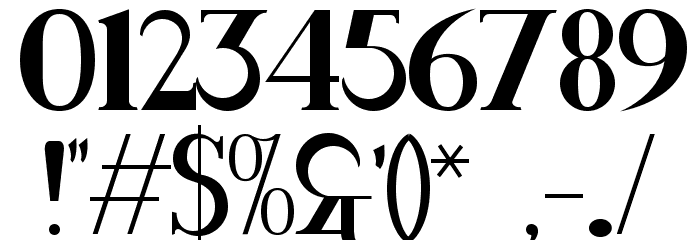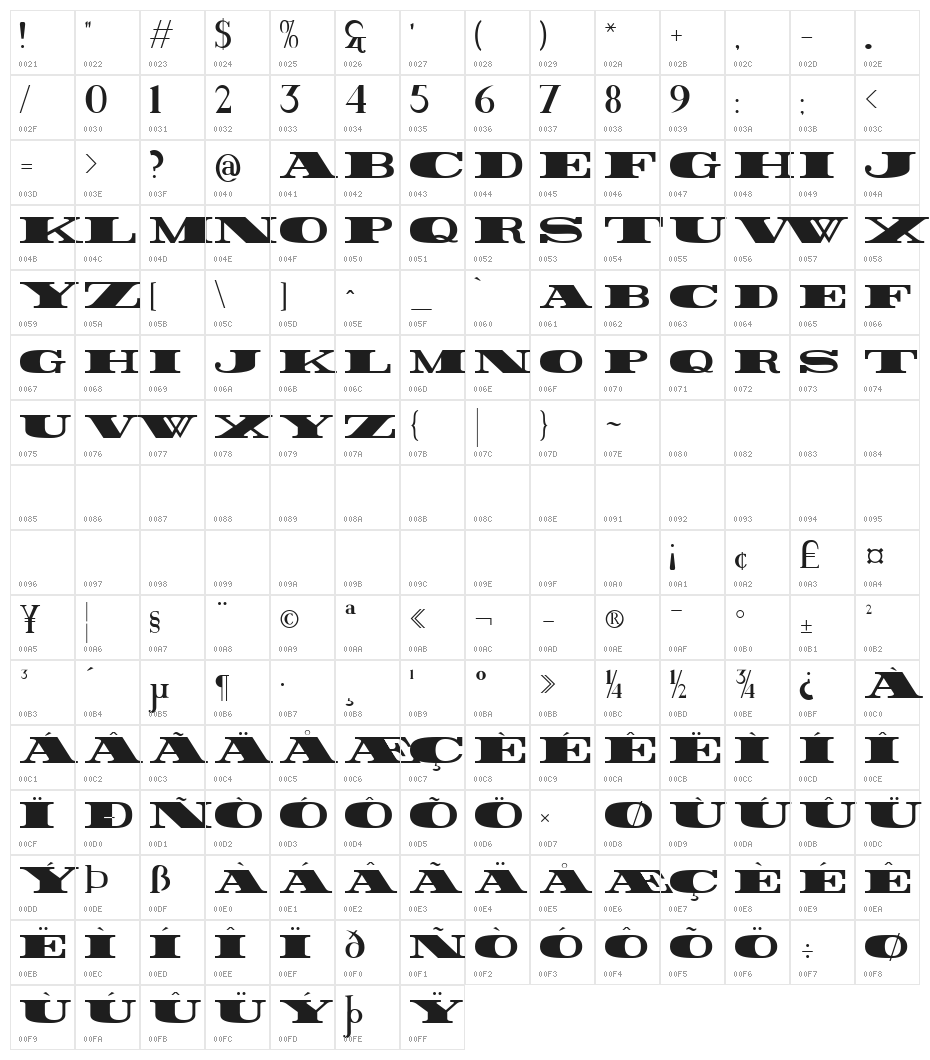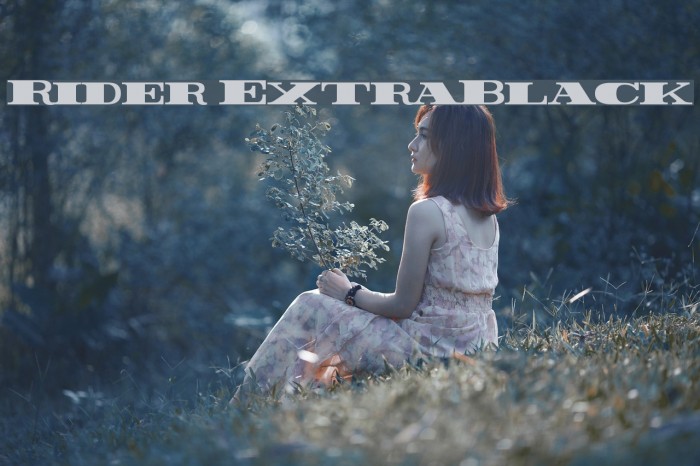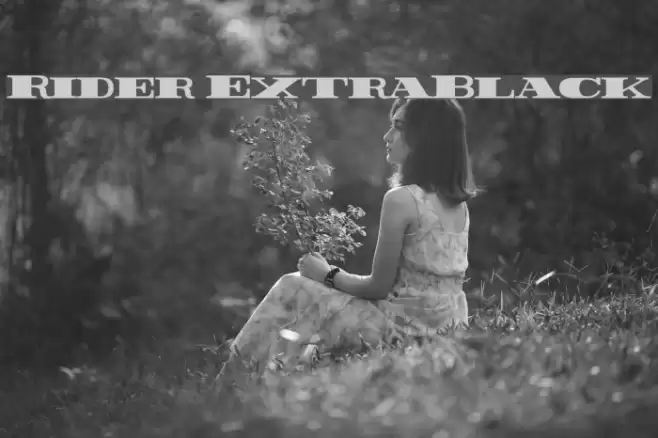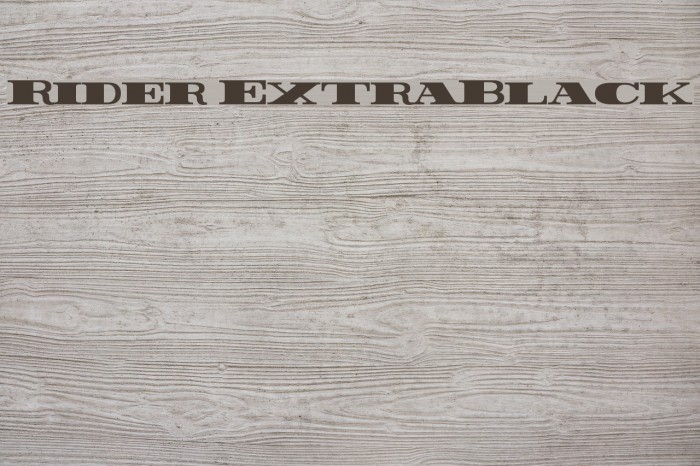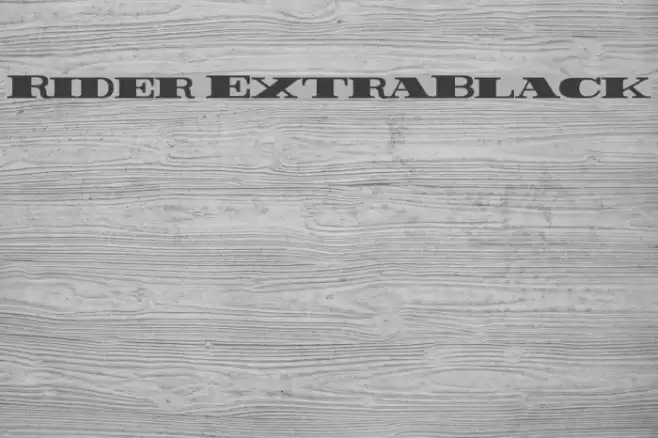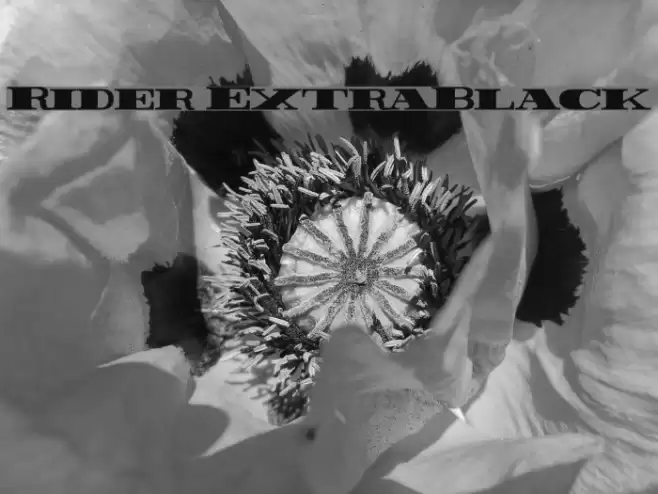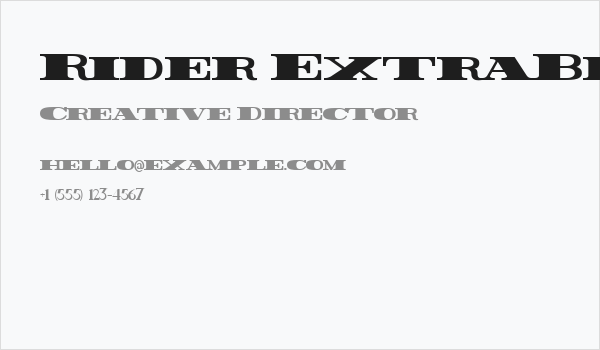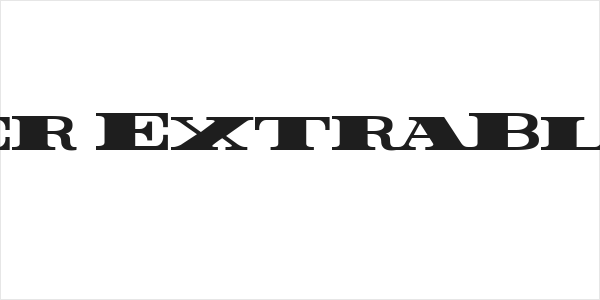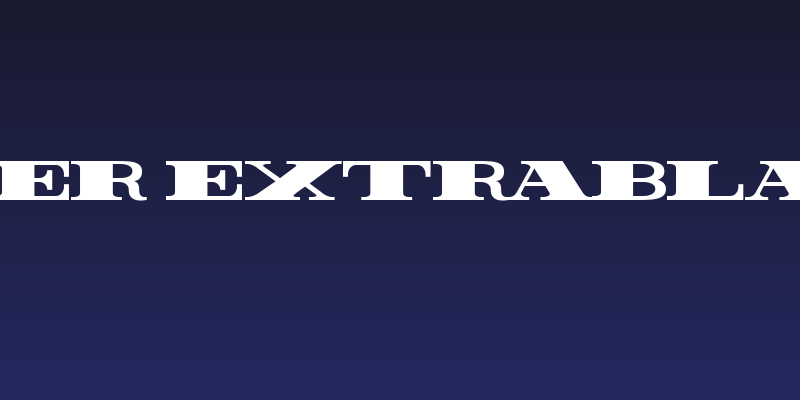
Rider ExtraBlack Font
Rider ExtraBlack Description
This font features a bold and striking design with thick, heavy strokes that create a commanding presence. The characters are wide and robust, with a strong emphasis on horizontal lines, giving it a powerful and authoritative look. The serifs are pronounced and angular, adding a touch of elegance and sophistication. The overall style is reminiscent of classic serif fonts but with a modern twist, making it suitable for impactful headlines and attention-grabbing designs. The numbers and special characters maintain the same boldness and clarity, ensuring consistency across all text elements.
| Proposed Projects | Ideal for branding, poster designs, magazine covers, and any project requiring a strong visual impact. |